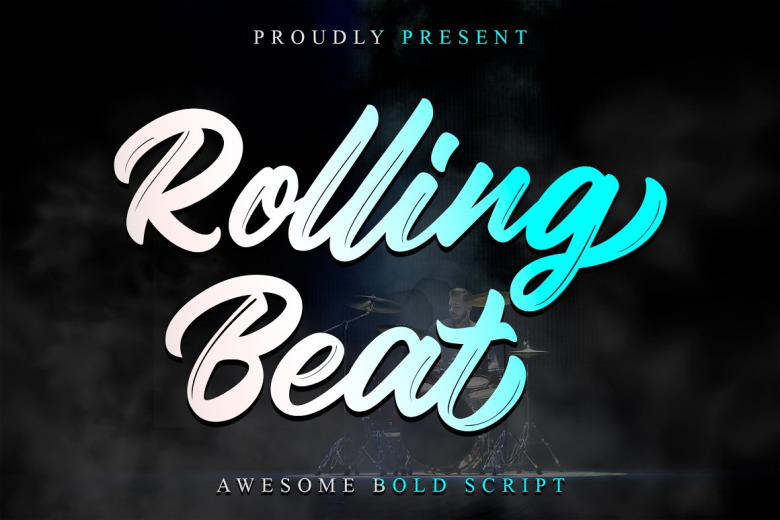
Rolling Beat Font
Rolling Beat is a bold script font, carefully handcrafted to become a true favorite. Its casual charm makes it appear wonderfully down-to-earth, readable, and, ultimately, incredibly versatile. This font will look outstanding in any context, whether it’s being used on busy backgrounds or as a standalone headline! This font is PUA encoded which means you can access all of the glyphs and swashes with ease!
Rolling Beat Bold Script Font